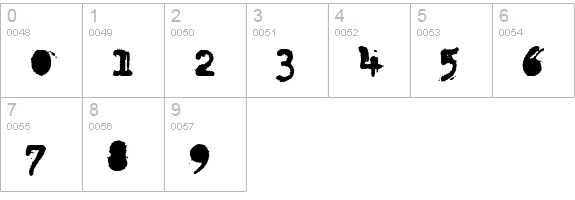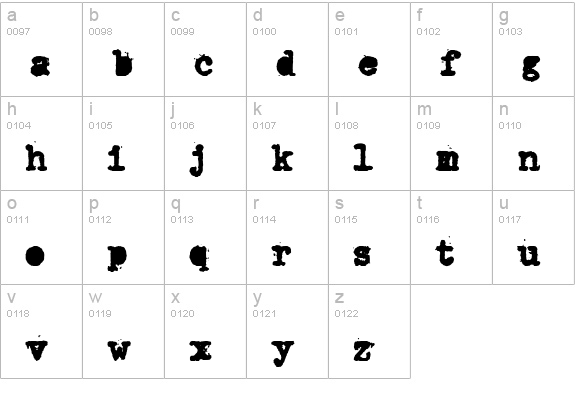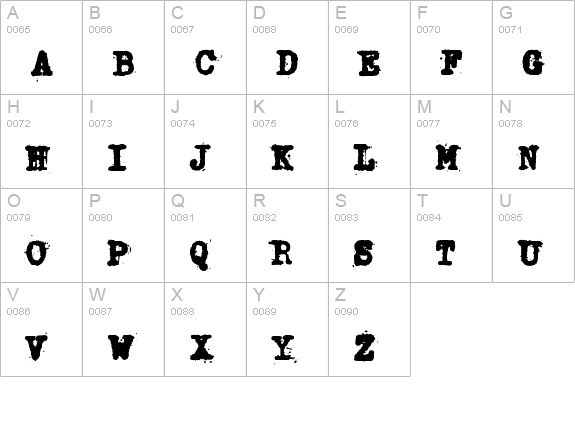
PFDumbOldTypeTwo AlterHeavy Font Details
PFDumbOldTypeTwo AlterHeavy font is a bold and distinctive typeface that exudes a sense of vintage charm and quirkiness. Its heavy weight and altered design make it stand out in any creative project, adding a touch of character and personality. This font is perfect for headlines, posters, logos, and any design that requires a strong and impactful look. What's even better is that PFDumbOldTypeTwo AlterHeavy font is available for free download at FontsMarket.com. Now you can easily access this unique and eye-catching font to elevate your designs without any cost. Don't miss out on the opportunity to add this versatile typeface to your font collection today!